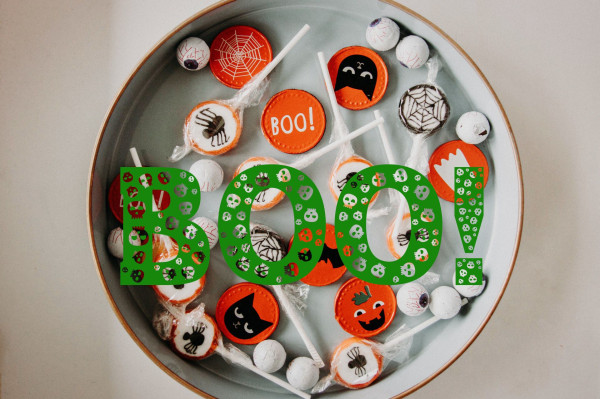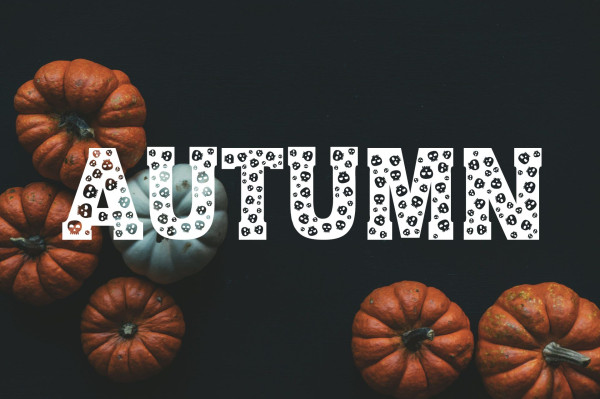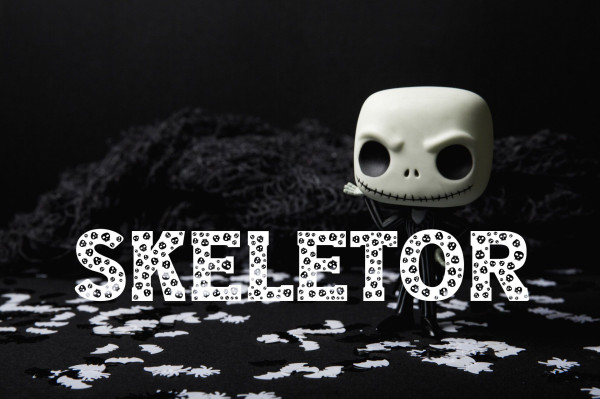
Skeletor Halloween Font
Skeletor Halloween Font, a Halloween font that is sure to give your Halloween project a spooky and creepy look. With its jagged edges and bold lettering, Skeletor is the perfect font for any horror-themed project. Skeletor will give your project a unique and terrifying look. Whether you’re designing a poster, flyer, or website, Skeletor is the perfect font to give your project a creepy and menacing feel. Try Skeletor today and give your Halloween project a unique and horrifying look.
Designer Name: vladocar